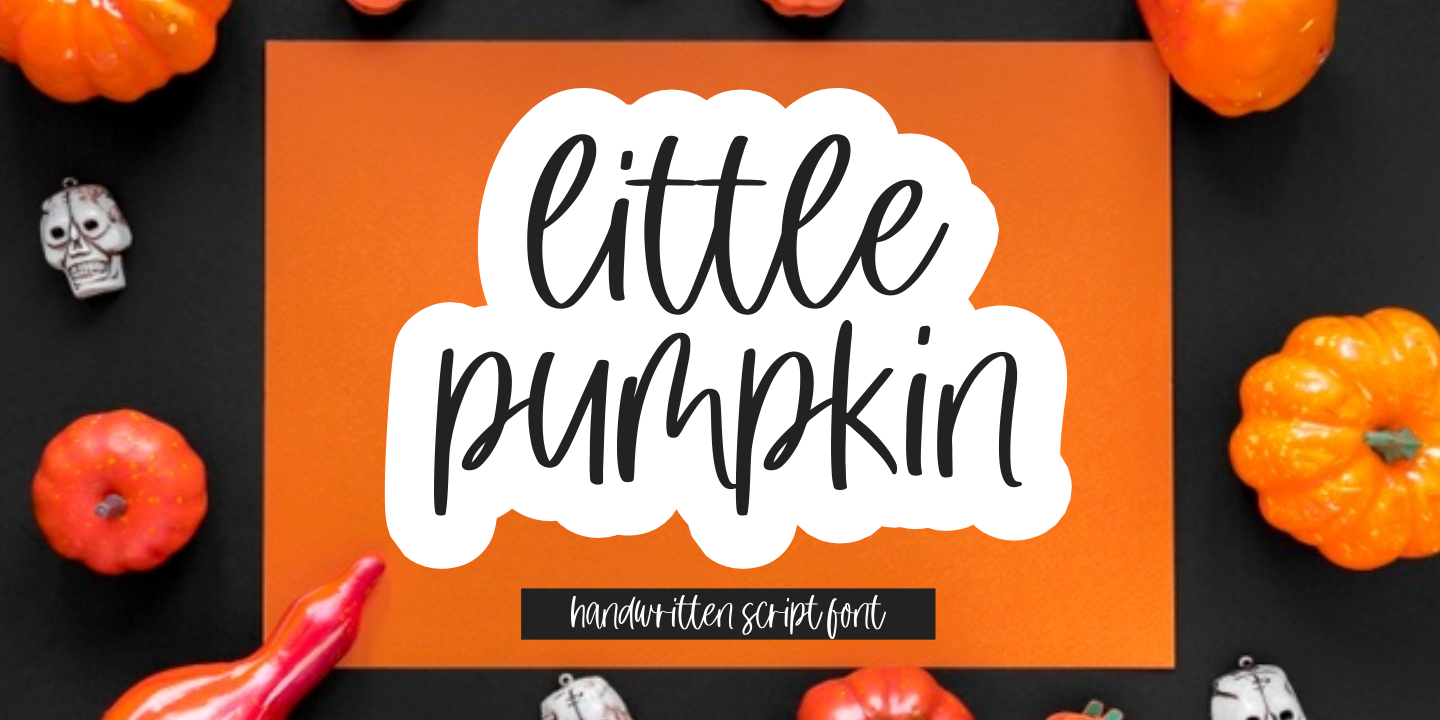
Little Pumpkin Font Free Download – Cute and Whimsical Typeface for Fun Designs
Looking to add a playful and charming touch to your creative projects? Little Pumpkin Font Free Download is the perfect choice. This adorable and quirky typeface brings a fun, friendly vibe to invitations, greeting cards, kids’ products, and seasonal designs.
Little Pumpkin’s rounded shapes and hand-drawn style create a warm and inviting atmosphere, ideal for Halloween-themed projects or any design that needs a bit of whimsy. Whether you’re designing logos, headlines, or decorative text, this font adds a unique, cheerful flair.
Bring a cozy and cute spirit to your typography with Little Pumpkin — a font that’s perfect for spreading smiles.